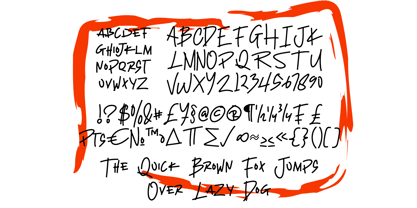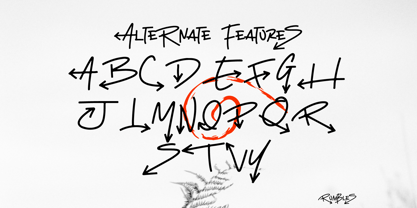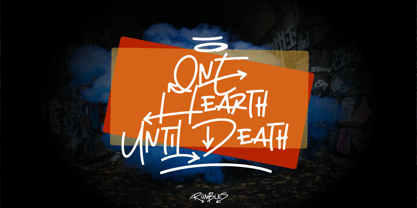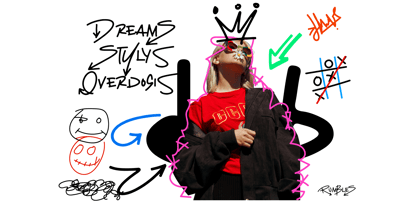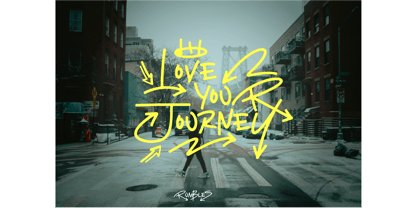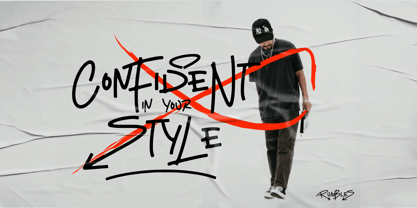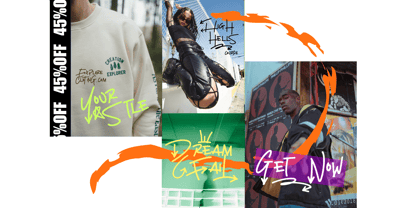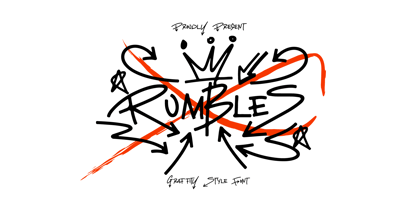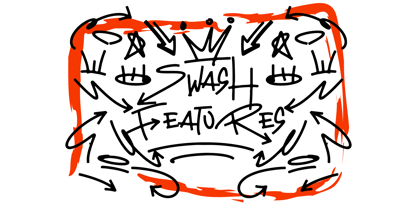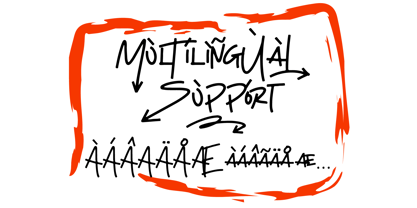
Rumbles
by ryan creative
The Rumbles Font Family was designed by ryan creative and published by ryan creative. Rumbles contains 1 styles.
Hello creators Introducing Rumbles inspired by the graffiti style with thin lines that have a unique appearance with additional variations in Alternates. accompanied by additional ornaments that you can adjust to your own style. can be applied such as, Design, image style, etc.
• Alternates,and ornaments